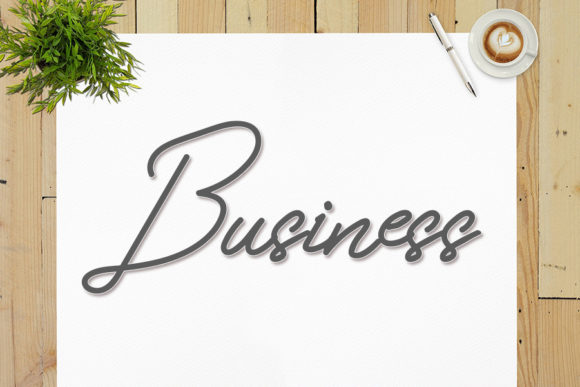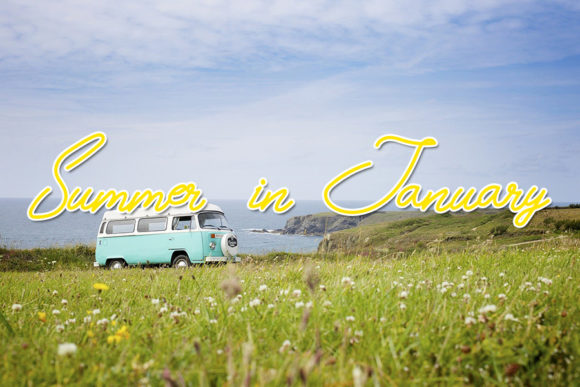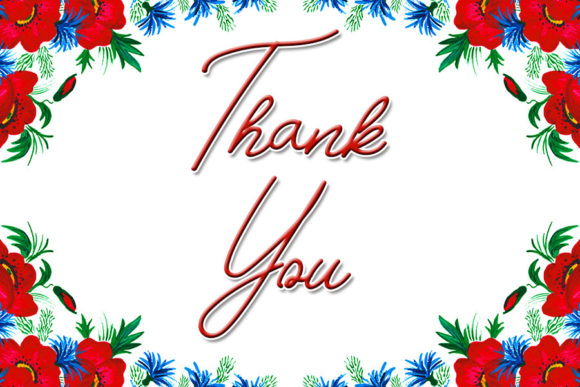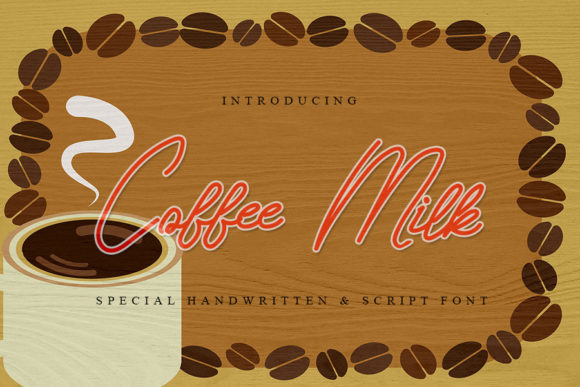
Coffee Milk Font: Elevate Your Designs with Sophistication and Elegance
In the world of typography, few fonts manage to convey the perfect blend of sophistication and elegance. Coffee Milk, a flowing script font, is one such gem that has captured the hearts of designers and crafters alike. With its stylish alternates and ligatures, Coffee Milk is the perfect match for any project that demands refinement and poise.
The Essence of Coffee Milk Font
Coffee Milk is more than just a font; it’s an experience. Its fluid strokes and cursive charm can instantly elevate the aesthetic of any design, making it a versatile choice for a wide range of applications. From luxury branding and high-end fashion to wedding invitations and elegant packaging, Coffee Milk brings a touch of class and sophistication that is hard to match.
Key Features of Coffee Milk Font
- Flowing Script Style: Coffee Milk boasts a beautiful, flowing script style that adds a touch of elegance to any text. Its refined appearance makes it perfect for designs that require a sophisticated look.
- Stylish Alternates and Ligatures: One of the standout features of Coffee Milk is its set of stylish alternates and ligatures. These allow designers to add a unique touch to their work, making each project stand out.
- Versatility: Whether you’re working on a luxury brand’s logo, a wedding invitation, or a fashion magazine, Coffee Milk’s versatility ensures it can be adapted to fit any design need.
- Ease of Use: Despite its elegant appearance, Coffee Milk is surprisingly easy to use, even for those who are new to typography. Its clear and readable style ensures that it can be used for both headings and body text.
Applications of Coffee Milk Font
The applications of Coffee Milk are vast and varied. Here are a few ideas to get you started:
- Luxury Branding: Use Coffee Milk to create a logo or brand identity that exudes elegance and sophistication.
- Wedding and Event Invitations: Add a touch of romance and class to your wedding or event invitations with Coffee Milk.
- Fashion and Beauty: Perfect for use in fashion magazines, beauty blogs, and product packaging where style is paramount.
- Packaging: Elevate your product packaging with a font that stands out and adds a touch of luxury.
Tips for Using Coffee Milk Font Effectively
To make the most of Coffee Milk, consider the following tips:
- Pair with Simple Fonts: For maximum impact, pair Coffee Milk with simpler fonts for body text to create a balanced look.
- Experiment with Ligatures: Don’t be afraid to experiment with the ligatures and alternates provided with Coffee Milk to add a unique touch to your designs.
- Consider Size and Weight: Play around with different sizes and weights of Coffee Milk to create visual hierarchy in your designs.
Coffee Milk font is a stunning addition to any designer’s toolkit. Its elegant and flowing script style, combined with its versatile nature and ease of use, makes it the perfect choice for projects that demand sophistication and elegance. Whether you’re a seasoned designer or a crafting enthusiast, Coffee Milk is sure to inspire and elevate your work to new heights.